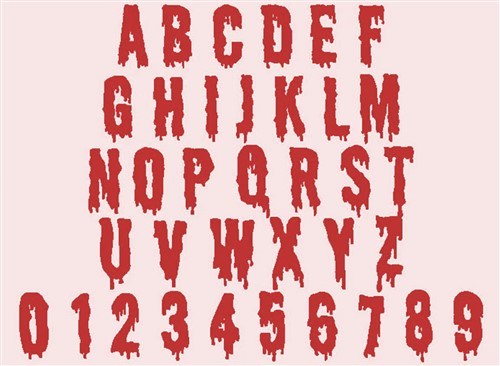
Unicorn Creatives is happy to present Halloween Night Embrilliance machine embroidery font which has Bold, uneven letters with a dripping blood effect give this Halloween decorative machine embroidery font a spooky touch, ideal for costumes or festive décor. Available in BX font and Embrilliance format. included. If you would like to view more embroidery fonts and alphabets please search our embroidery fonts page.